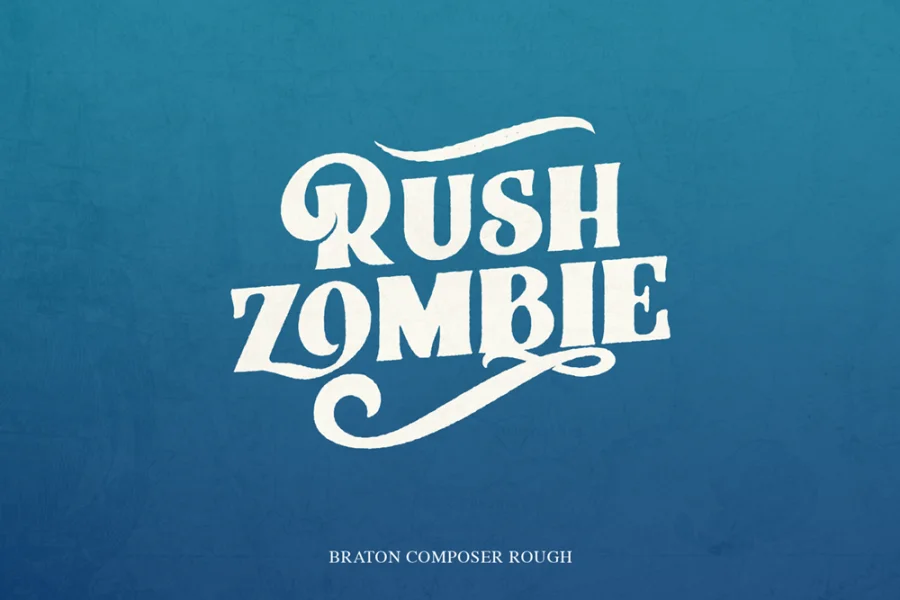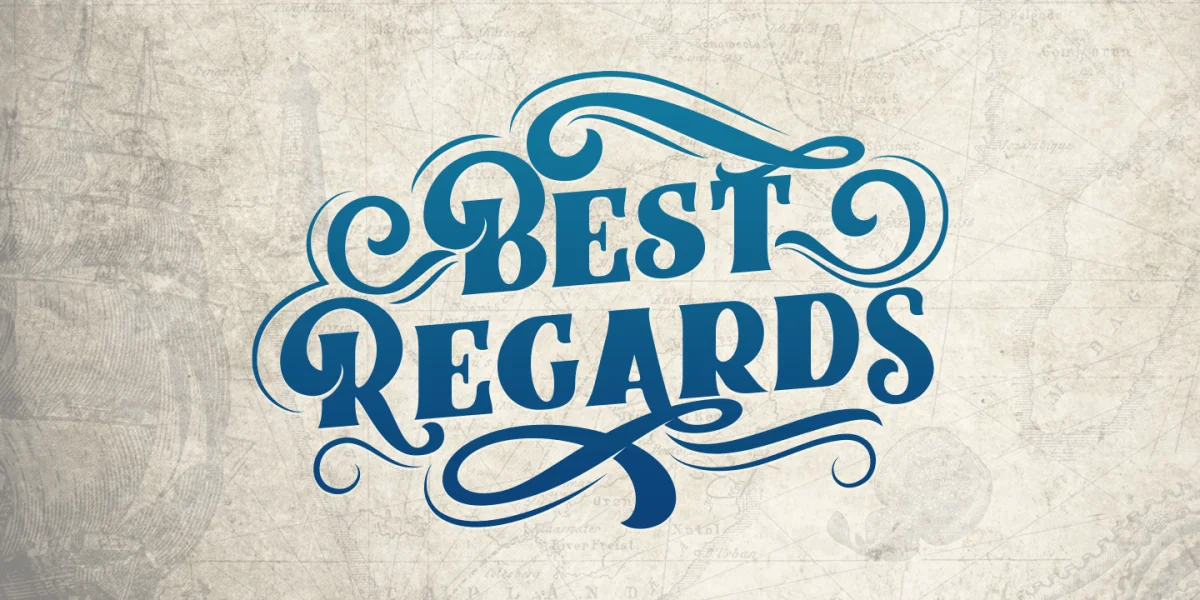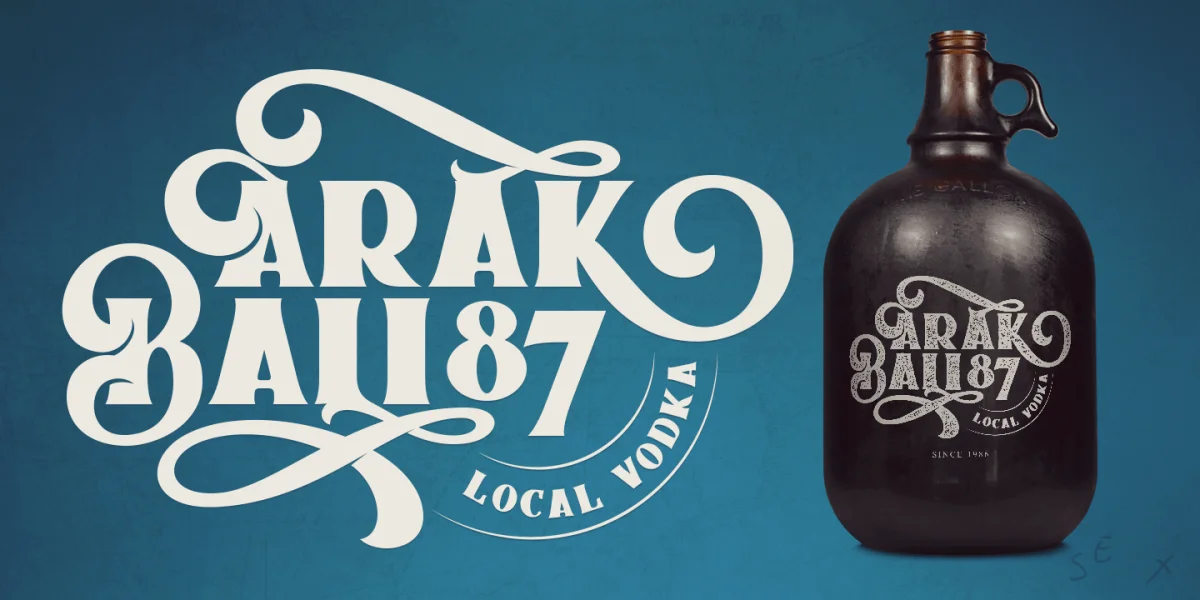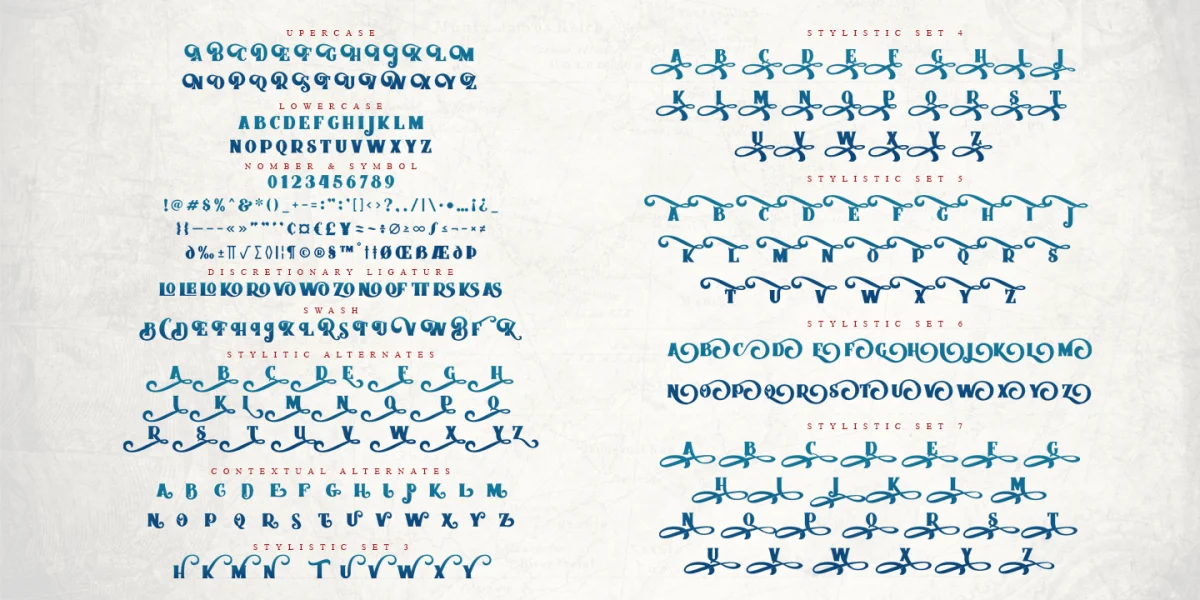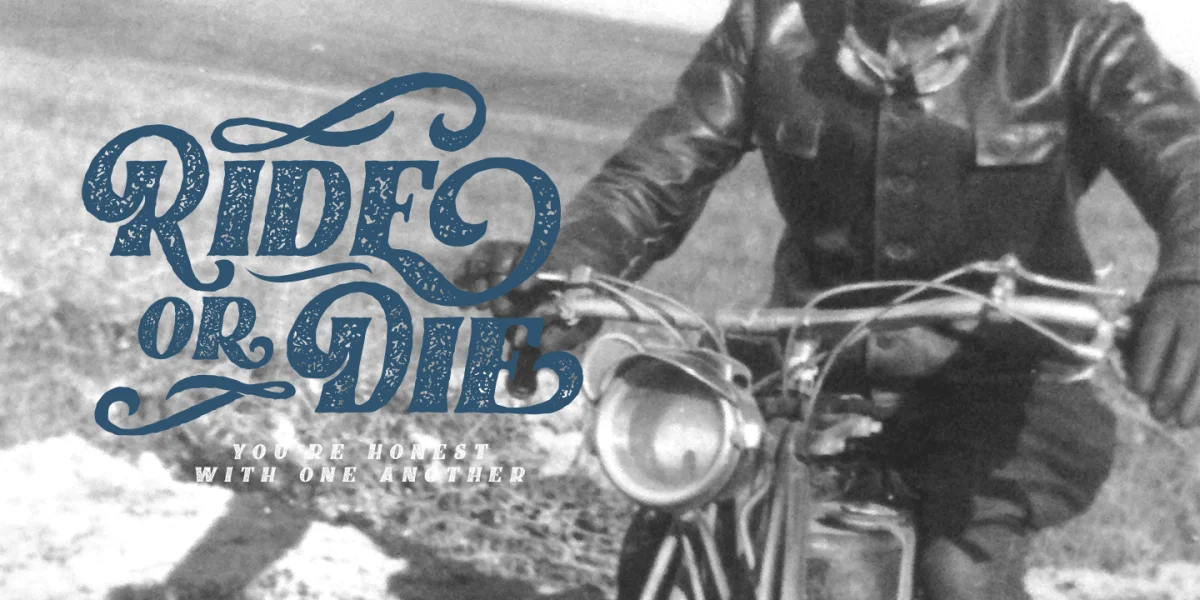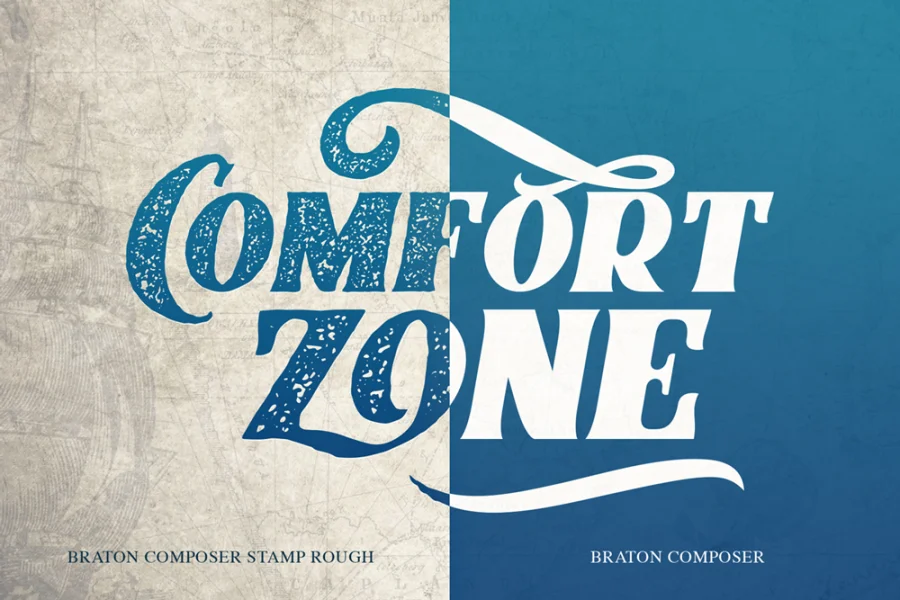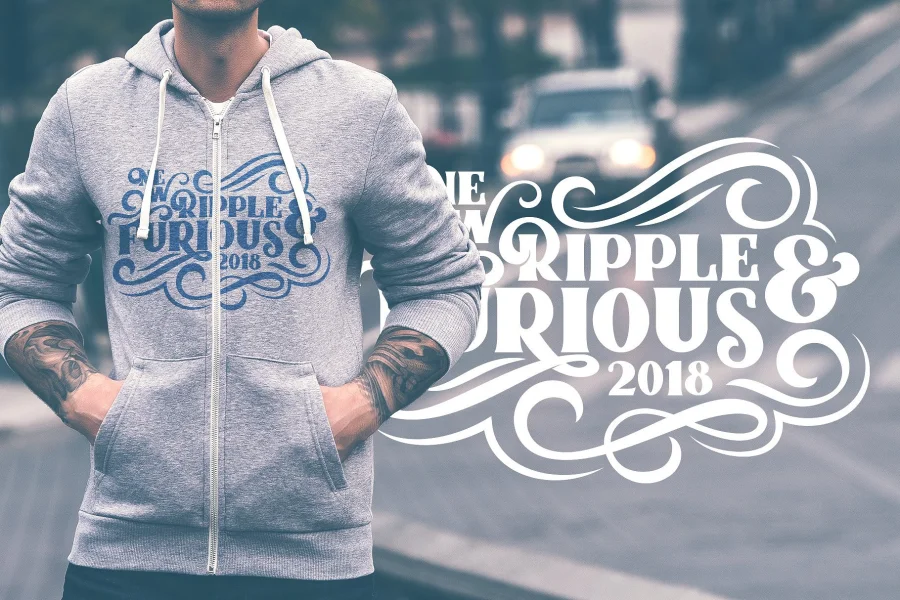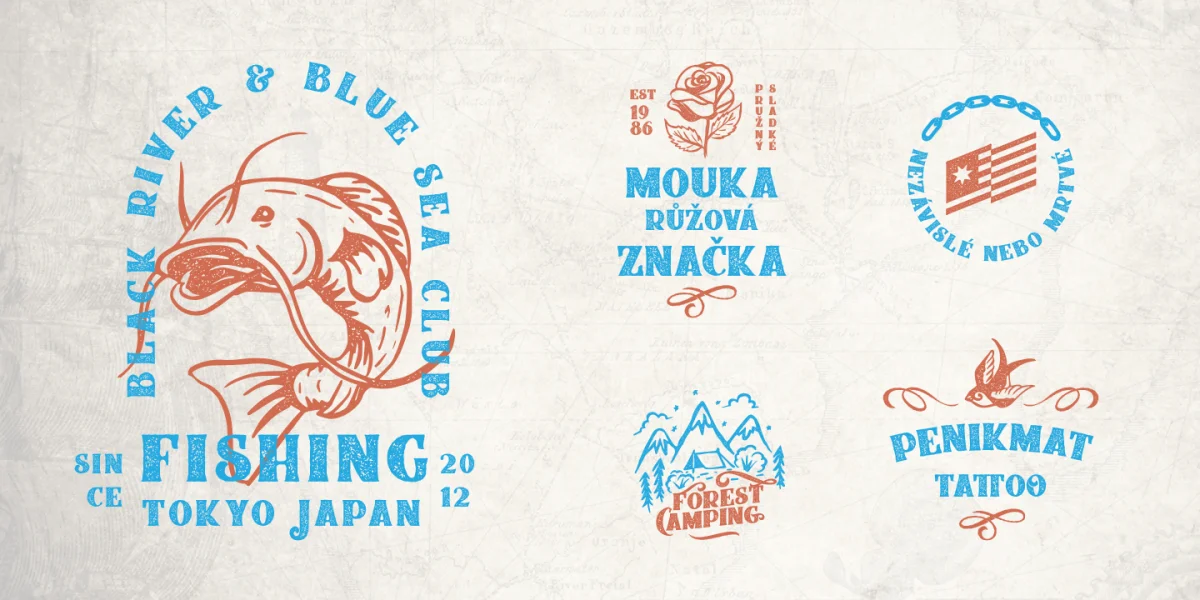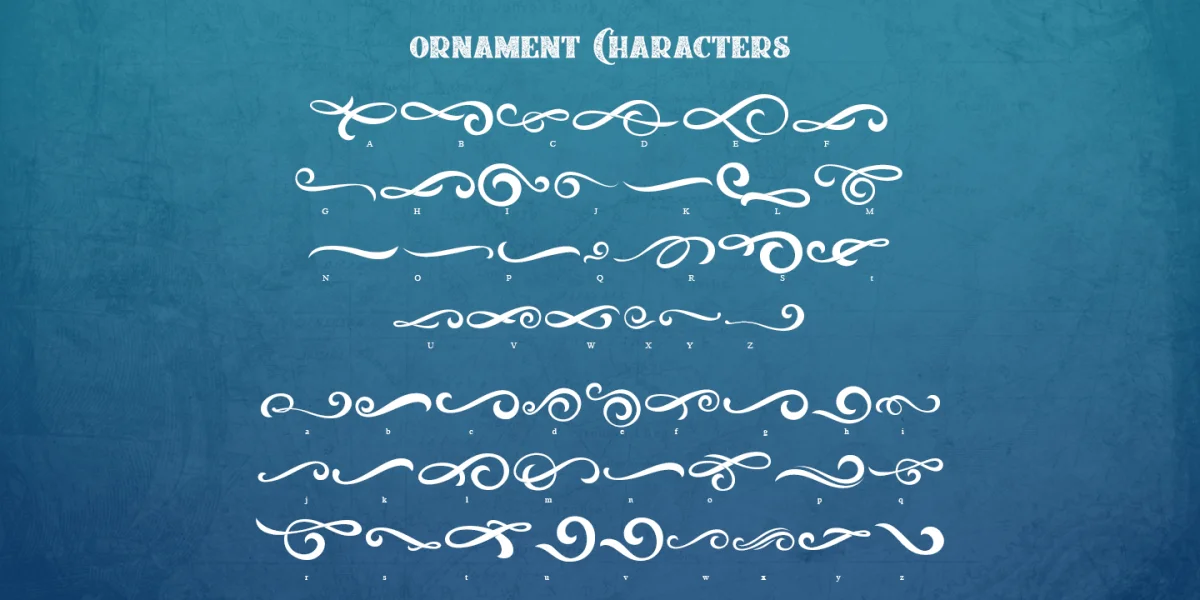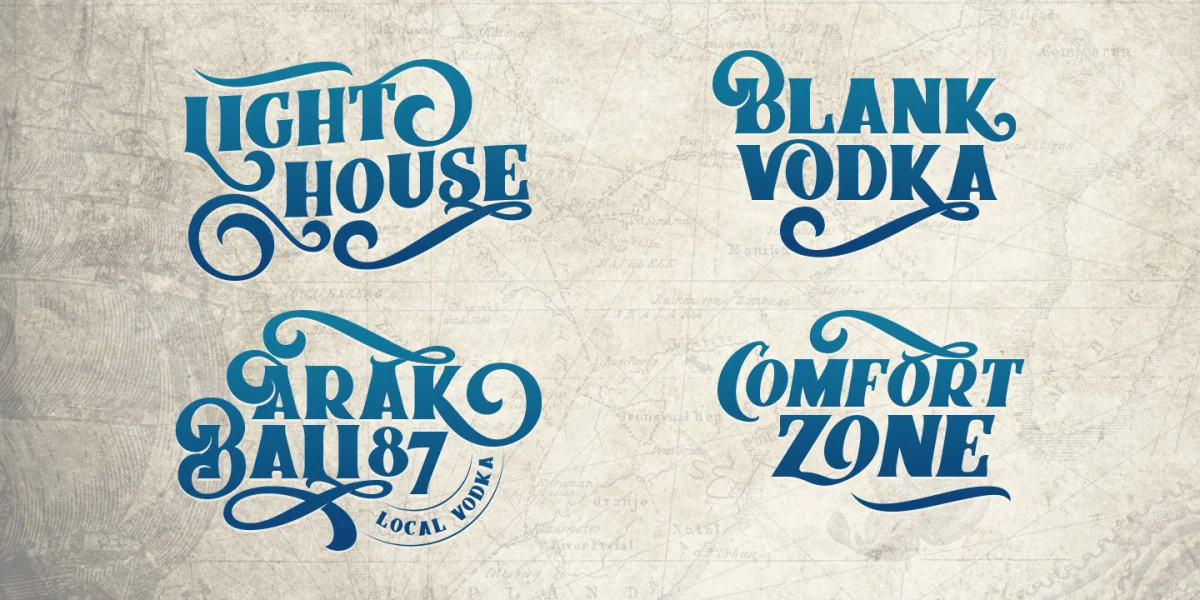
After releasing the Rumble Brave font with a vintage elegant style successful in the market. Now we are launching a vintage font that is plump, looks fat, strong, heavy but still elegant and unique. “Braton Composer typeface” falls into the bold serif font category, but it also has italic options. This impression is perfect for design that has a firm and elegant concept.
Braton Composer typeface is very worthy of your collection, because Braton Composer is very unique when combined with swash and alternative of the character options.
In addition to “Braton Composer Regular” also has 2 other styles, namely "Braton Composer Rough"and “Braton Composor Stamp Rough”.
Braton Composer Typeface is perfect for beverage label design project. coffee label. logotype design, badges, classic wedding concept. victorian design concept and so on. gig poster, letterhead, droop cap, titles, and any artworks.